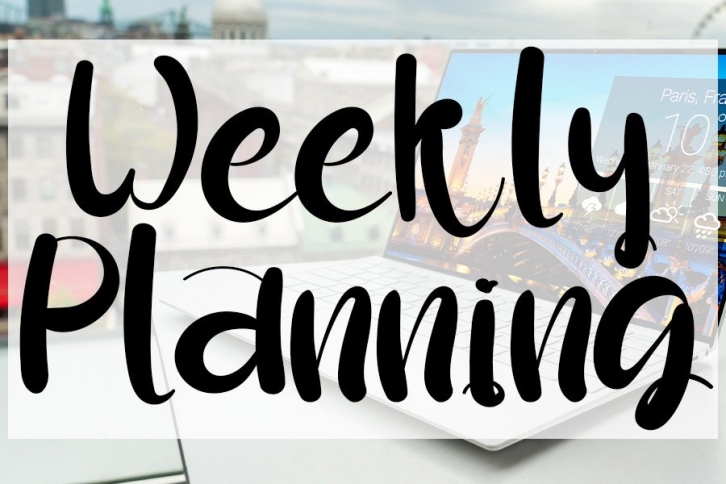
Weekly Planning is a sweet, whimsical and flowing script font. Fall for its dazzling style and use it to create gorgeous wedding invitations, beautiful stationary art, eye-catching social media posts, and much more!Â